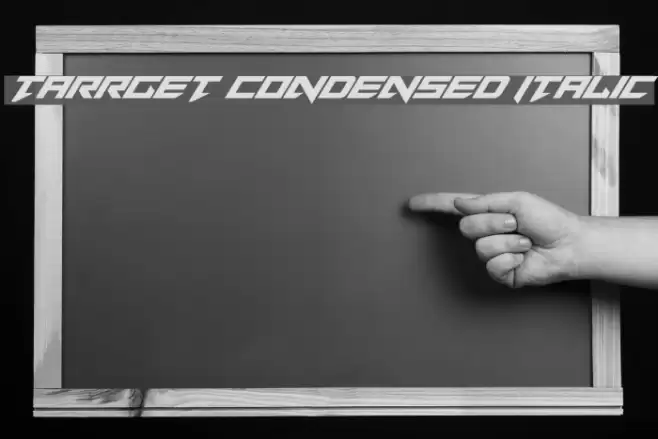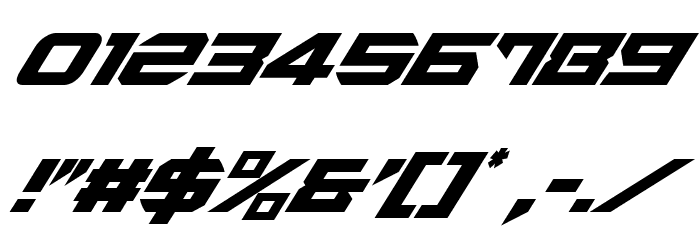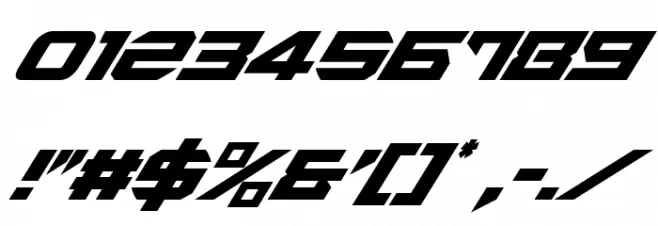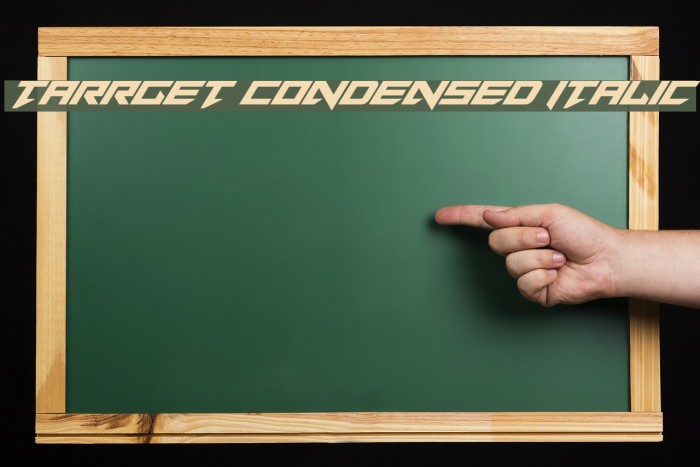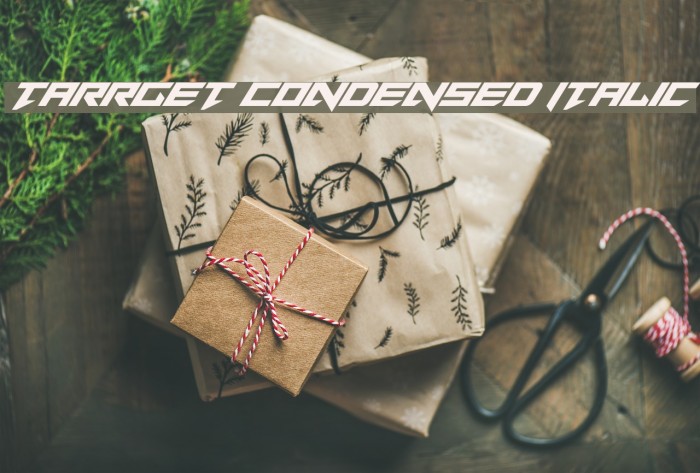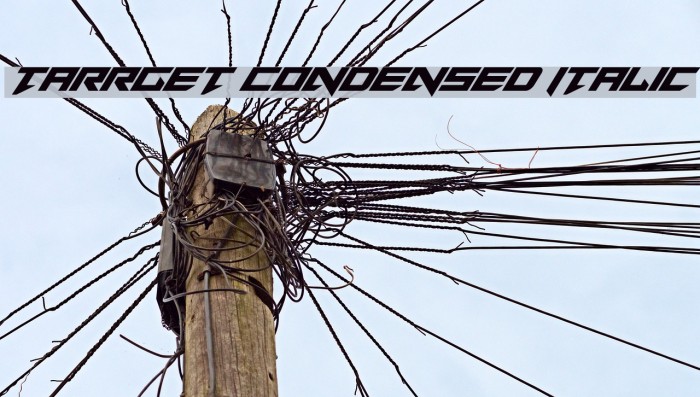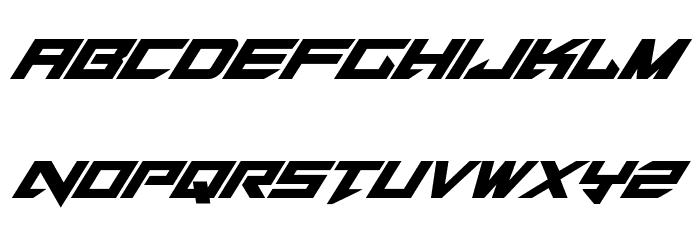
Tarrget Condensed Italic Font
Tarrget Condensed Italic Description
This font features a bold and dynamic style with a futuristic flair. The characters are sharply angled and condensed, giving a sense of speed and motion. The italicized slant enhances this effect, making it ideal for projects that require a modern and energetic look. The uppercase letters are particularly striking, with a strong geometric influence that is consistent across the alphabet. The numbers and special characters maintain this aesthetic, ensuring a cohesive appearance throughout. The font's design is both eye-catching and versatile, suitable for a variety of creative applications.
A bold, condensed, and italicized font with a futuristic and dynamic style from Uncategorized fonts.
- Proposed Projects: Ideal for sports branding, automotive designs, video game titles, and dynamic posters.